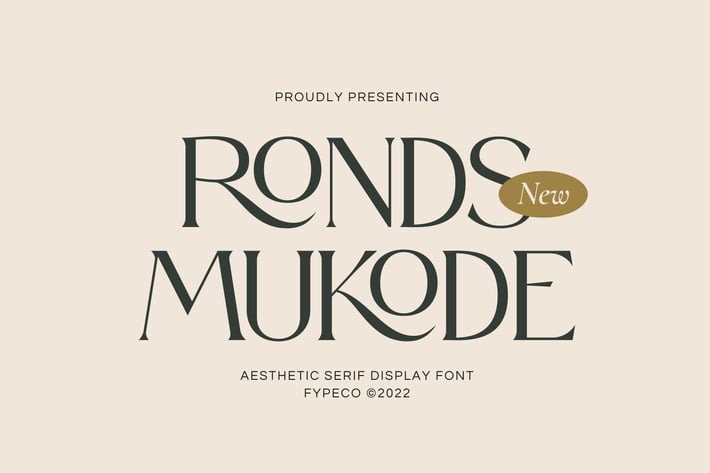
Ronds Mukode - Aesthetic Serif Font
FypeCo
Ronds Mukode is aesthetic and modern display font with alternatives and ligatures. Its stylish and modern design give it a elegant and classy feel. Perfect for a stunning logos, quotes, Invitation, posts, blog posts. branding projects, magazine imagery, typography and much more.
Font Features
-Uppercase
-Lowercase
-Alternatives
-Ligatures
-Numerals & Punctuation
-Multilingual Support